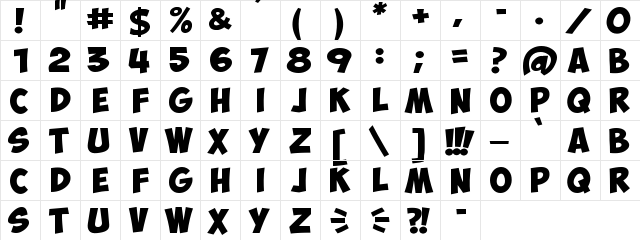
ObelixPro Bold Font Preview
ObelixPro Bold
ObelixPro Bold Font Details
Design Context for ObelixPro Typeface
ObelixPro is a composed and adaptable typeface that performs quietly and consistently across a wide range of design contexts. Its bold stroke weight gives it real presence on the page.